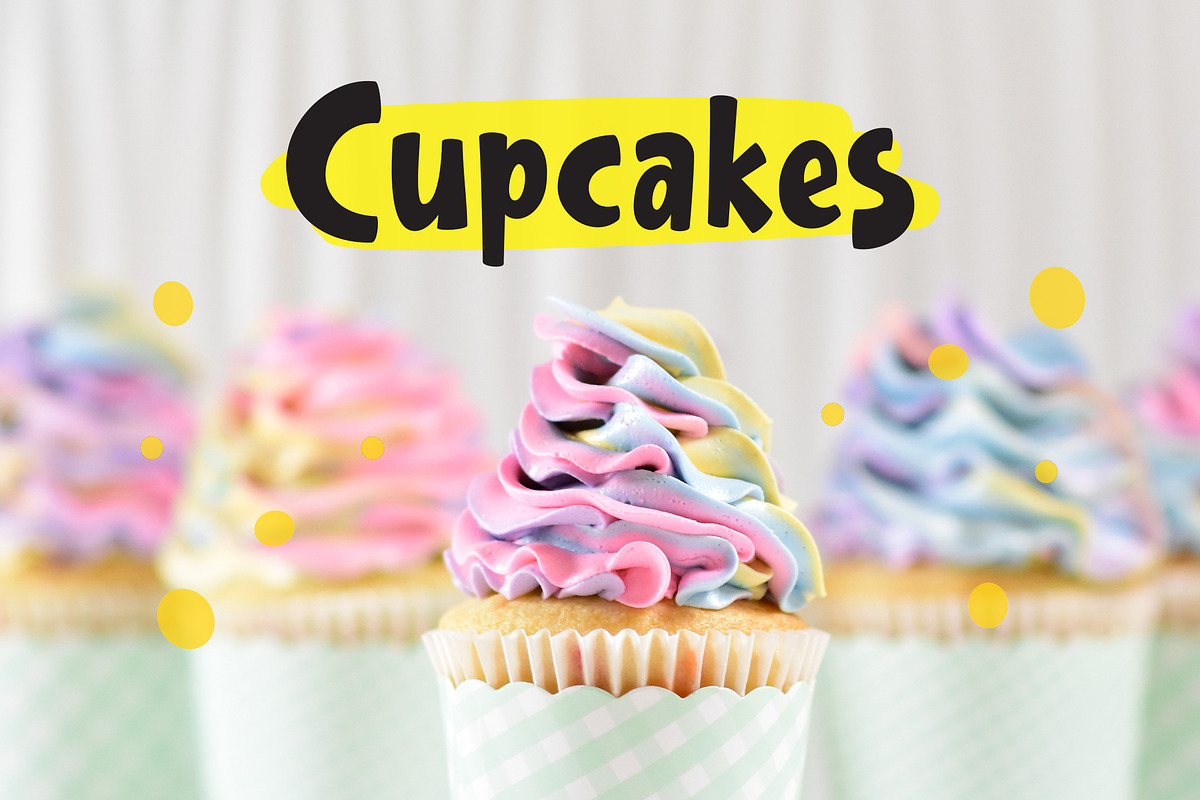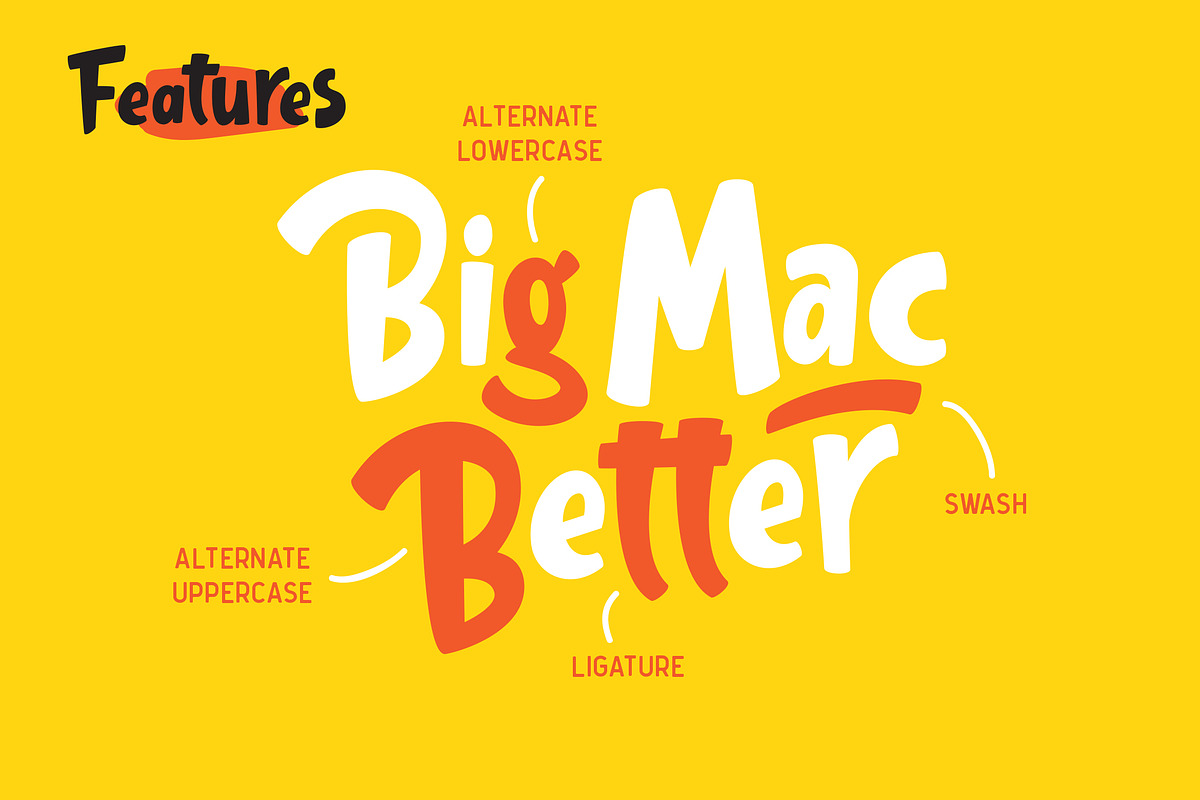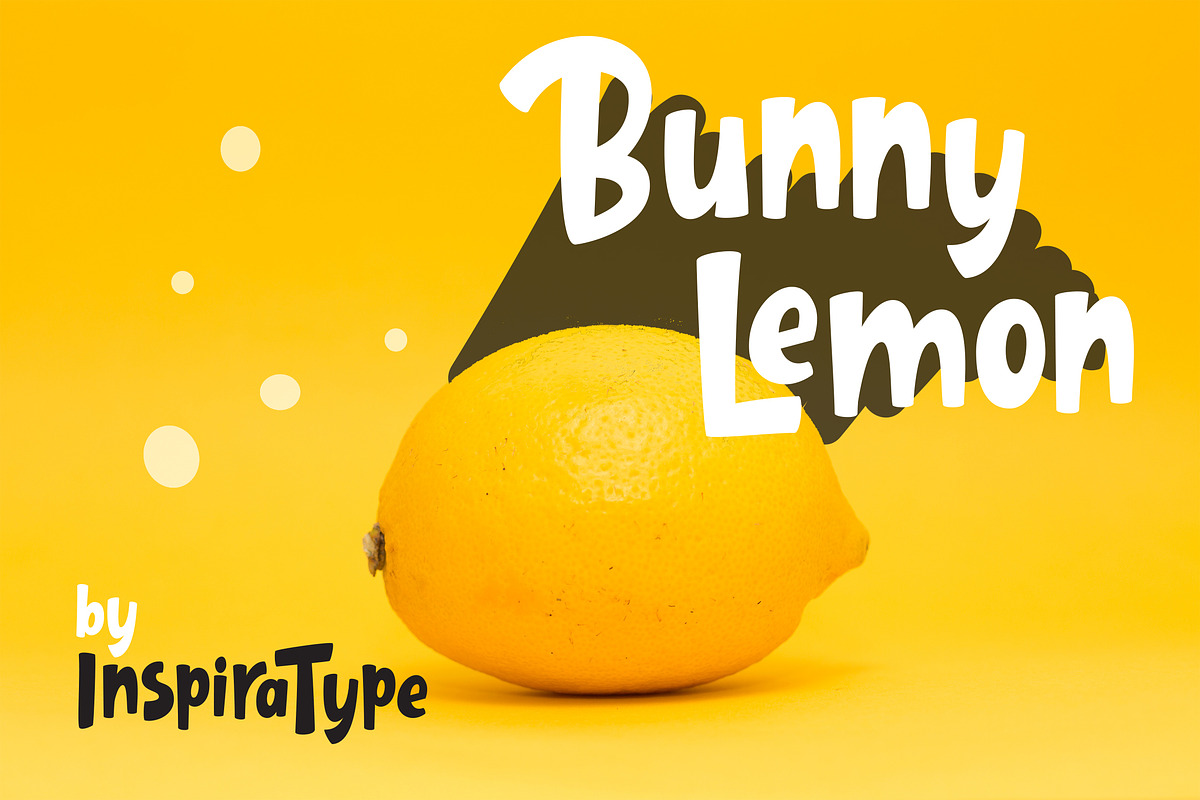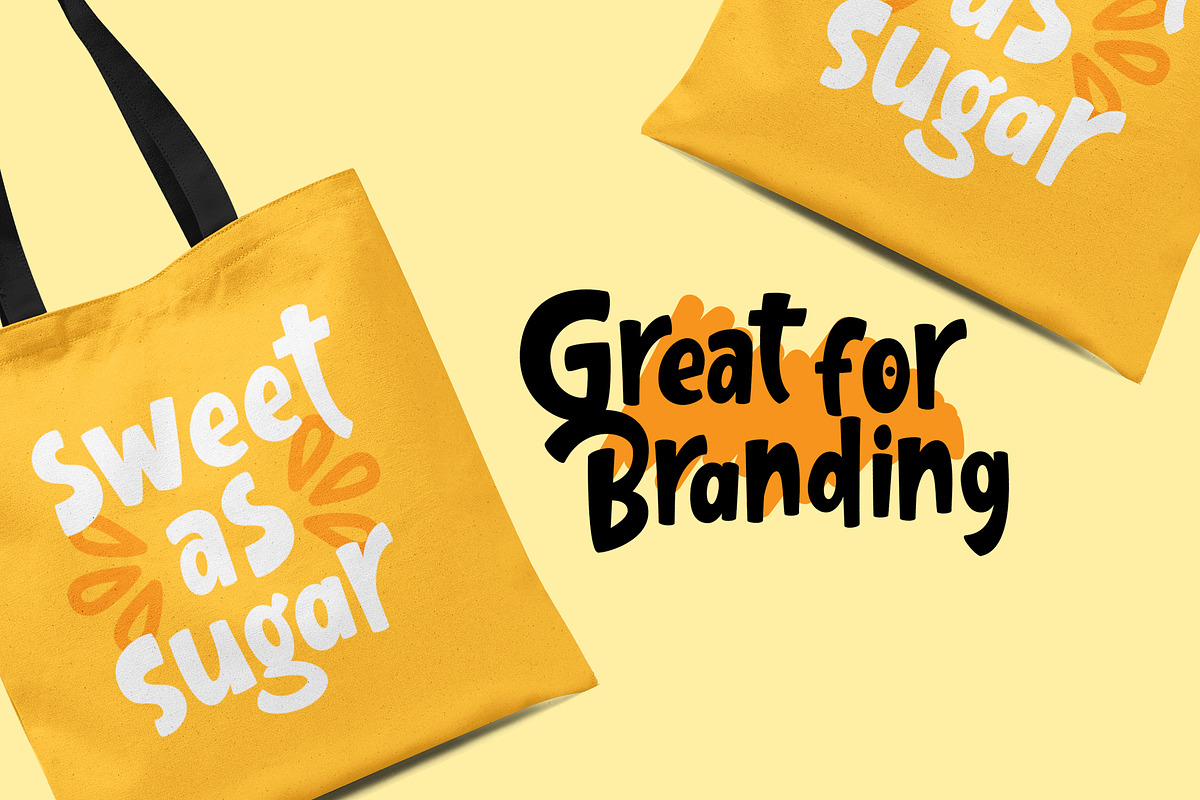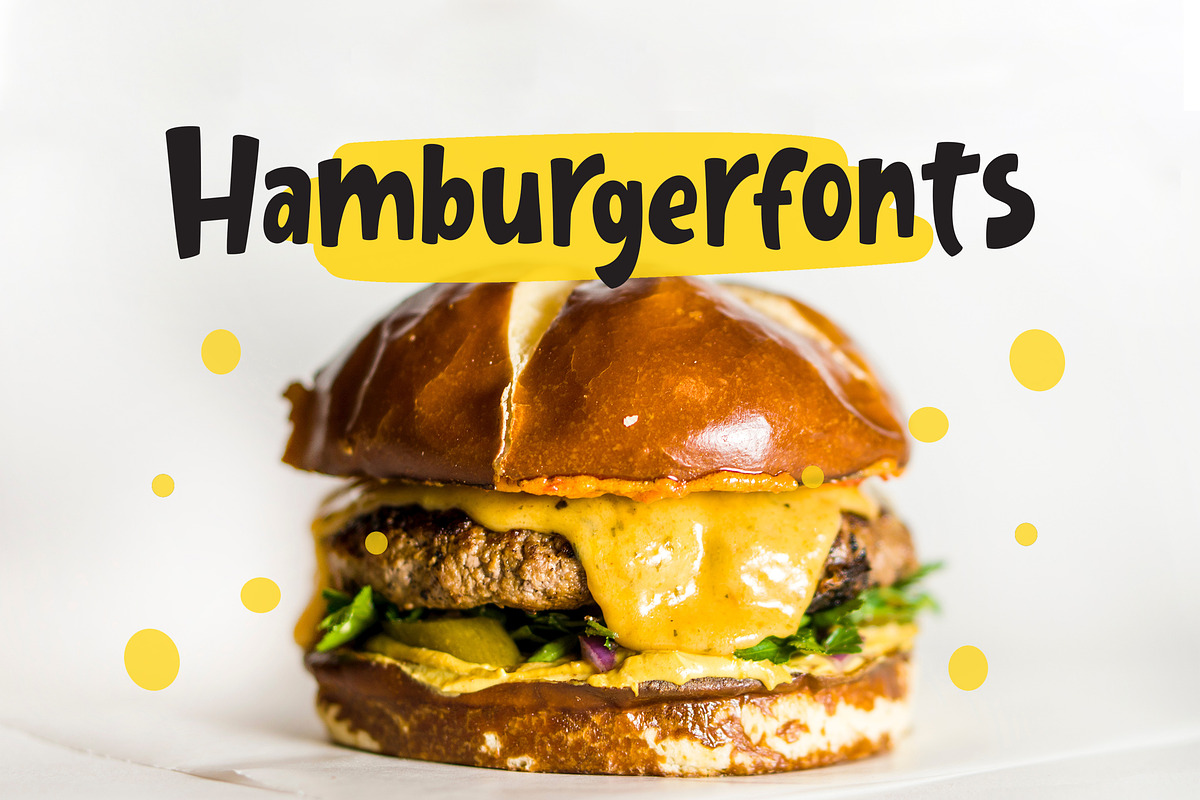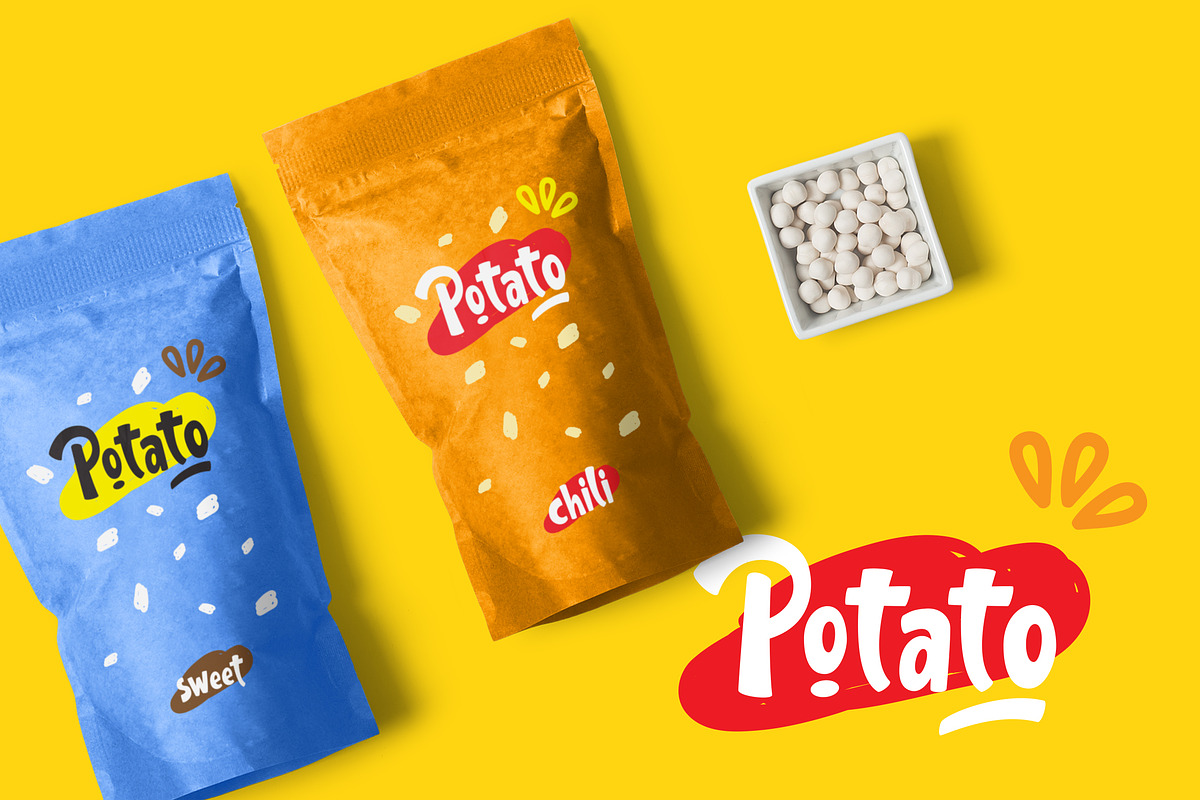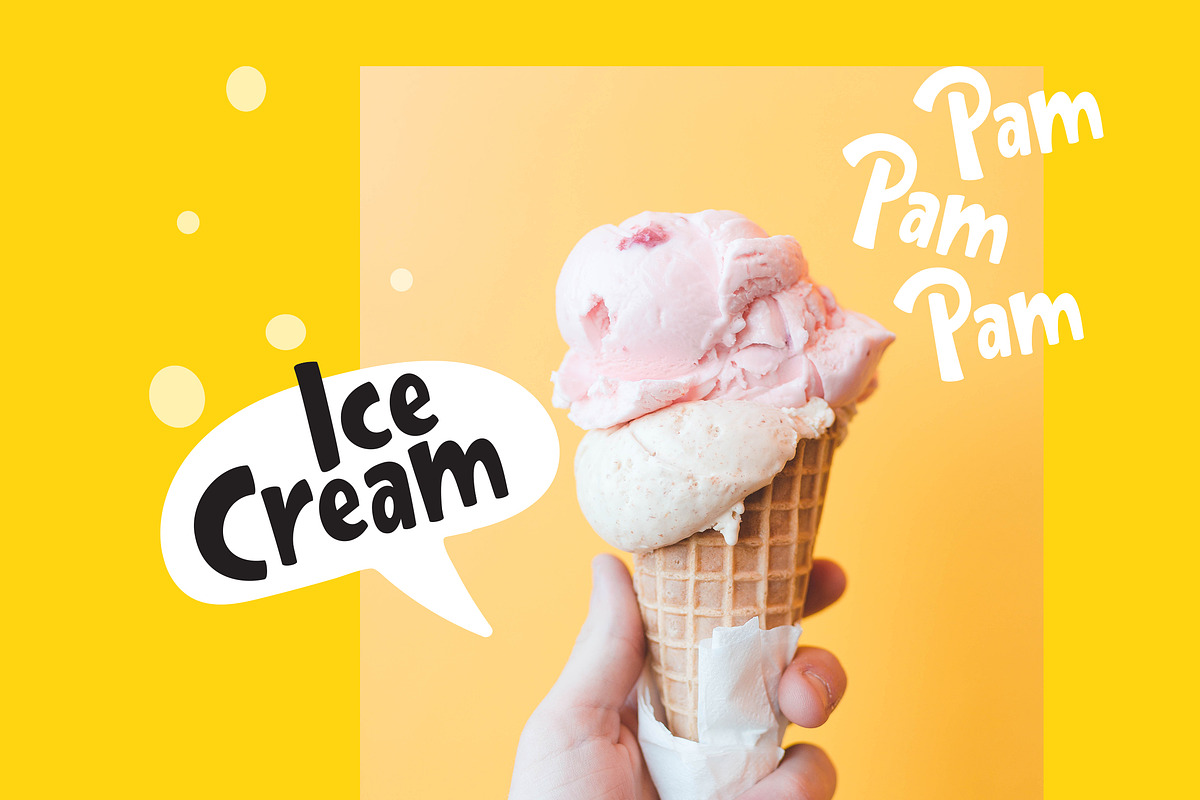
Gula - Playful Font
"Gula" is a font display that is made by hand, inspired by classic posters.
comes with uppercase, lowercase, numerals, punctuations and so many variations on each character include OpenType alternates, common ligatures and also additional swash to let you customize your designs. Perfect to use for Logotype, Letterhead, Poster, Apparel Design, Label and etc.